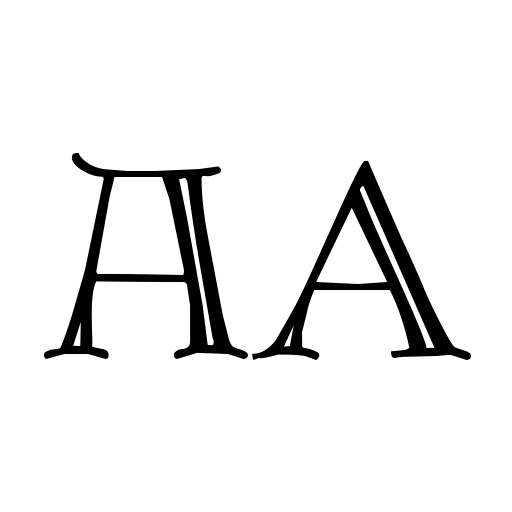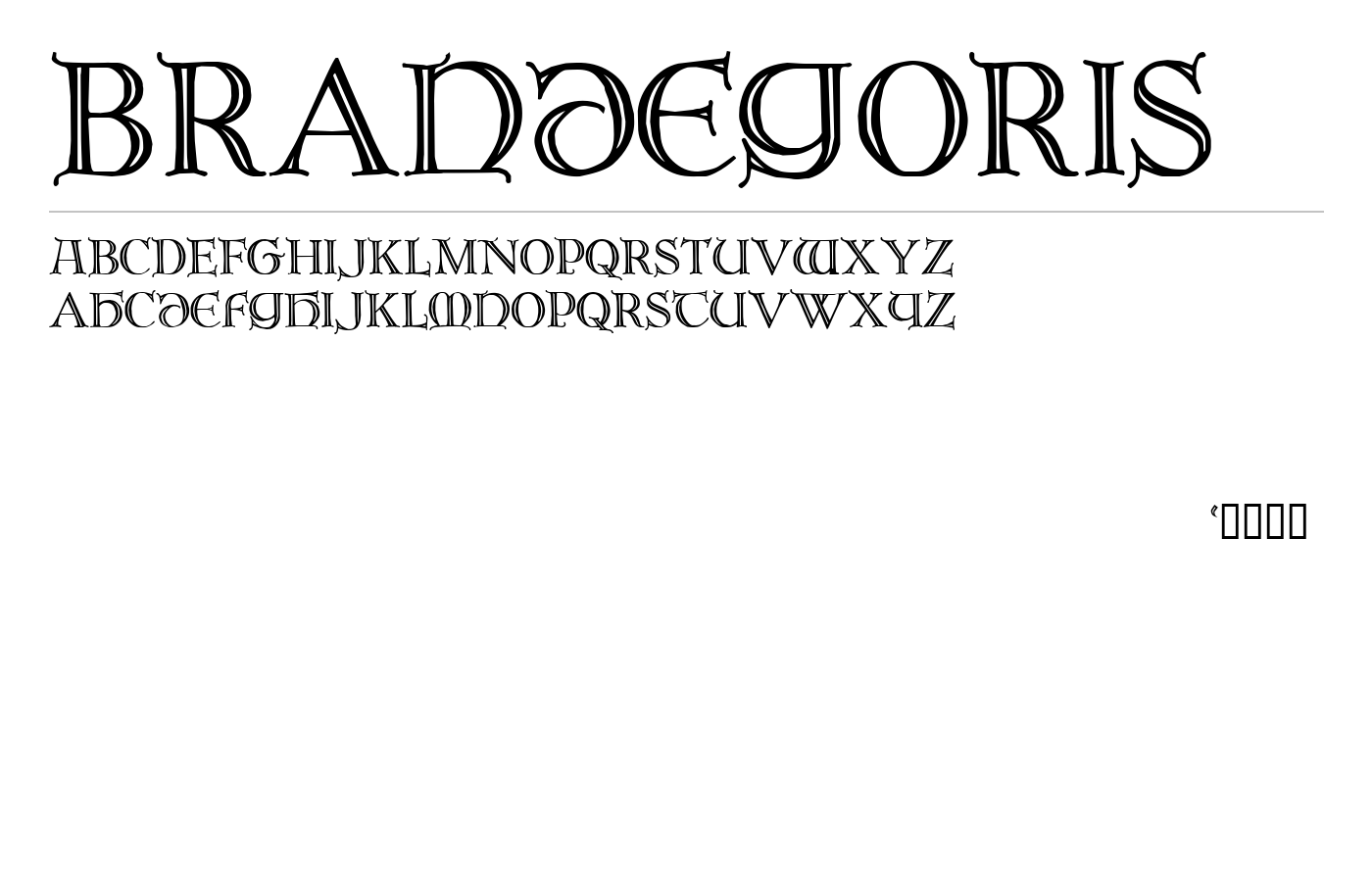
Brandegoris is a sophisticated serif font featuring angular, sharp strokes and intricate details that give it a medieval, ornamental feel. Its unique letterforms boast medium contrast with slight calligraphic flair, making it ideal for vintage-inspired designs, luxurious branding, and decorative headlines where a distinctive, artistic touch is desired.
Brandegoris Font